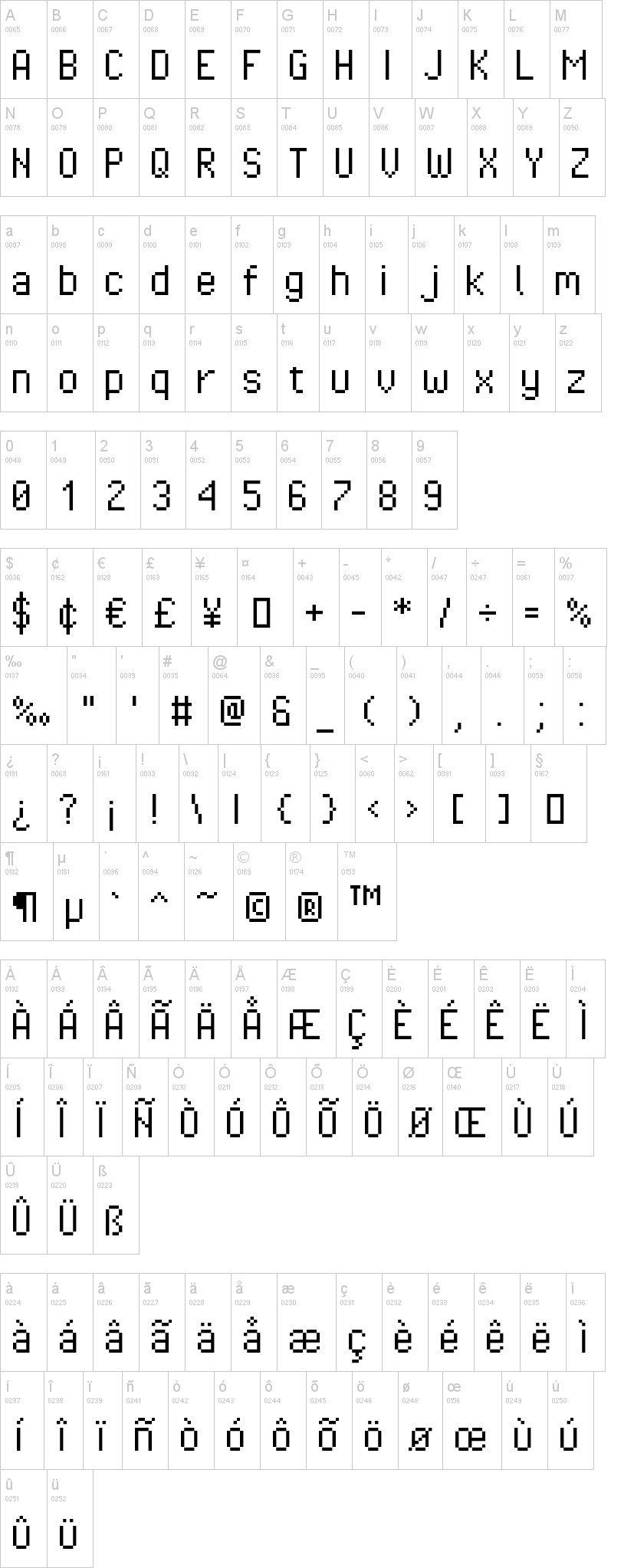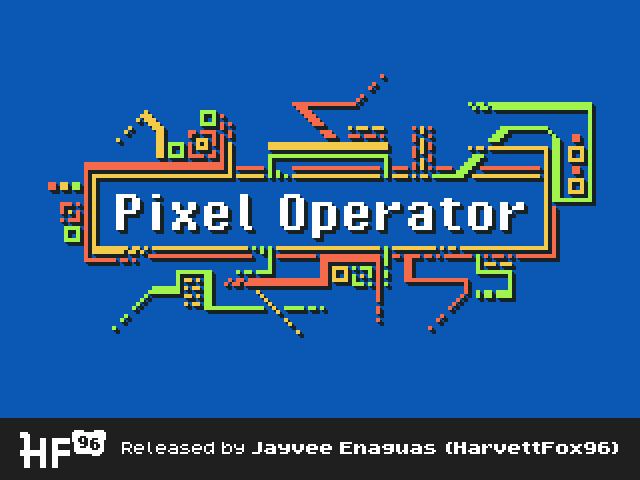
Pixel Operator (previously known as the 8-bit Operator) is a libre/free raster proportional and monospace sans serif typeface.
- Added Esperanto characters.
- Added copyright (©, ℗) and trademark (®, )symbols.
- Added Philippine Peso (₱) and Spesmilo (₷) currency symbols.
- Major arrangement, clean up and fixes.
- Modified one (1), Ii, Jj and l in every monospace variants only.
- Overhaul half-bolded variant design.